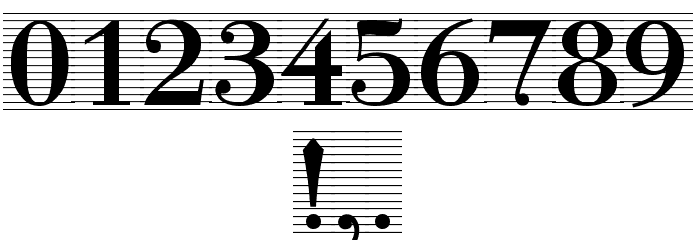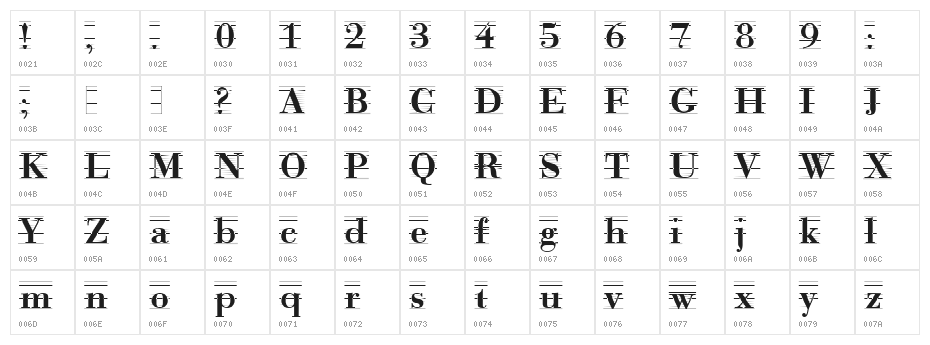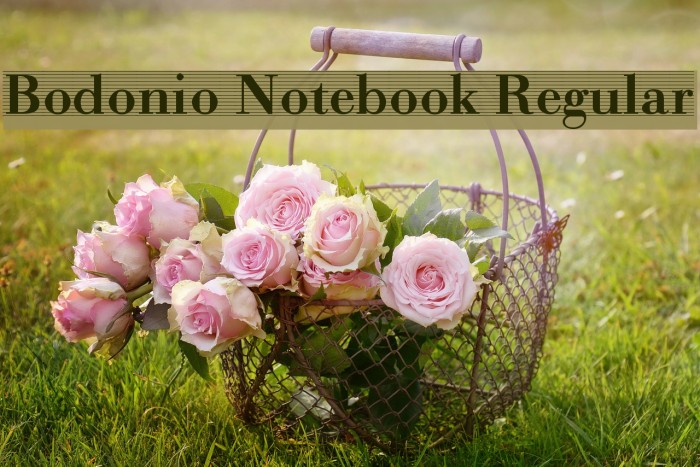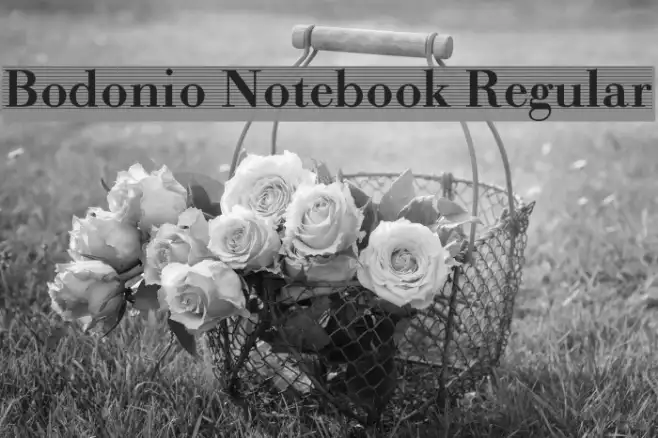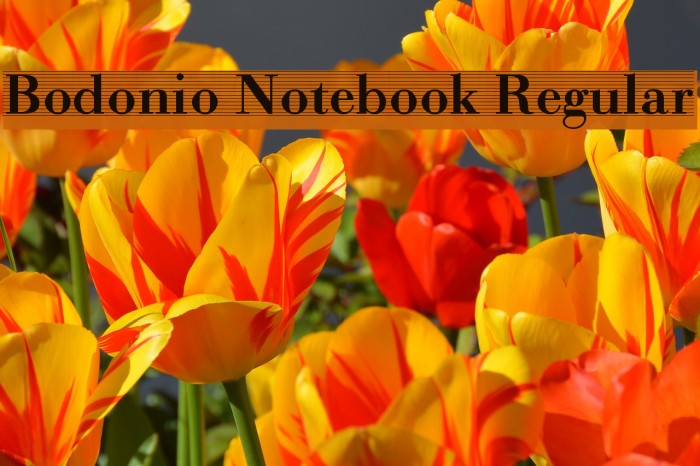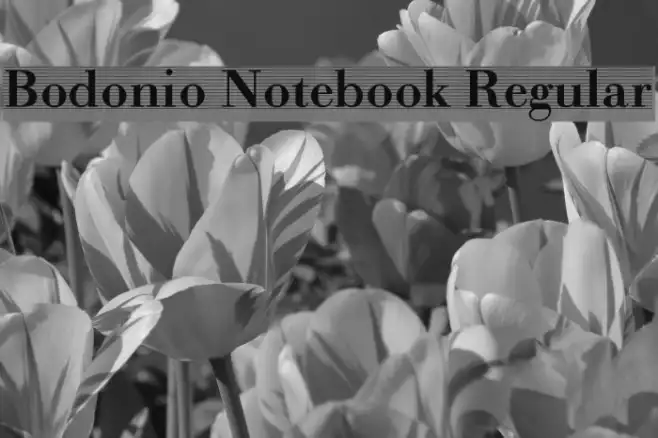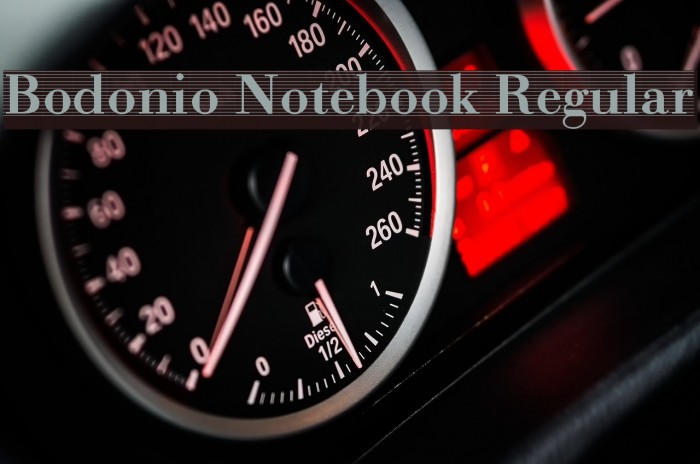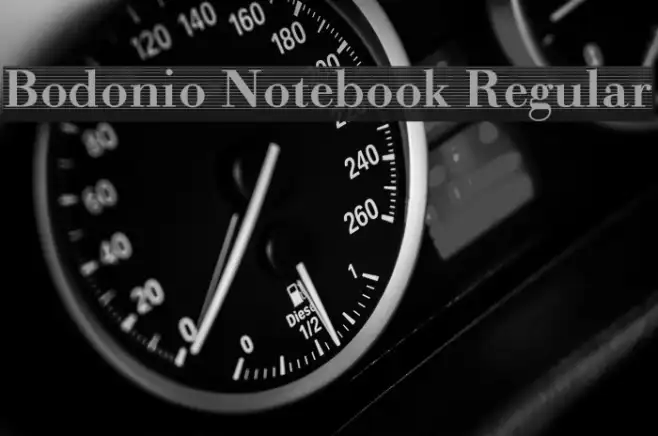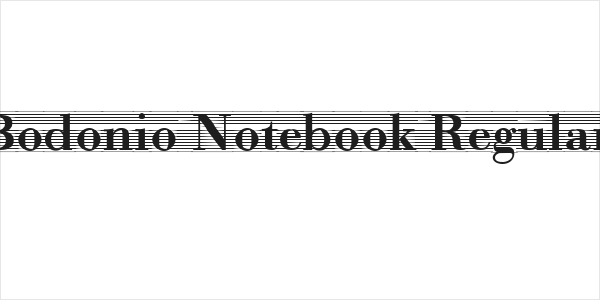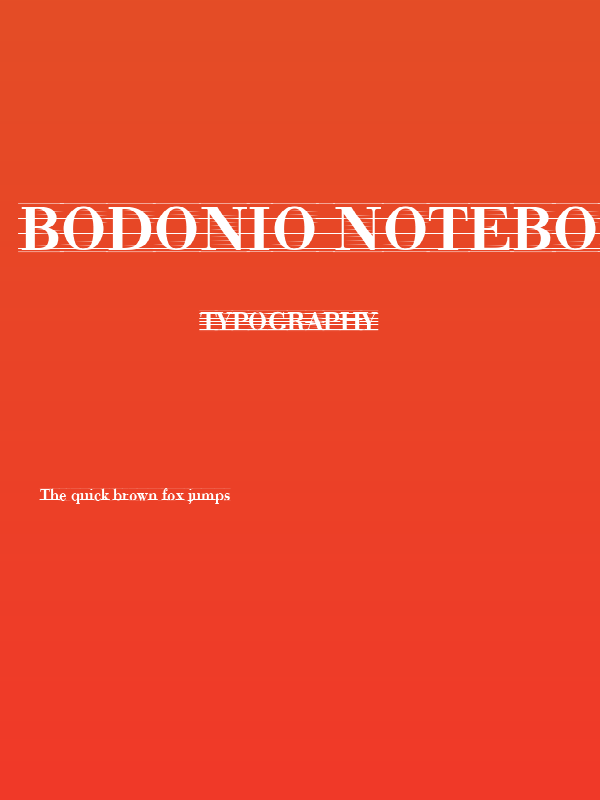
Bodonio Notebook Regular Font
Bodonio Notebook Regular Description
This font exhibits a classic and elegant serif style, characterized by its high contrast between thick and thin strokes. The serifs are sharp and pronounced, giving it a sophisticated and timeless appearance. The uppercase letters are bold and commanding, while the lowercase letters maintain a graceful flow. The numerals are well-proportioned, and the special characters are distinct and stylish. This font is ideal for projects that require a touch of elegance and formality.
| Proposed Projects | Ideal for editorial design, book covers, luxury branding, and formal invitations. |